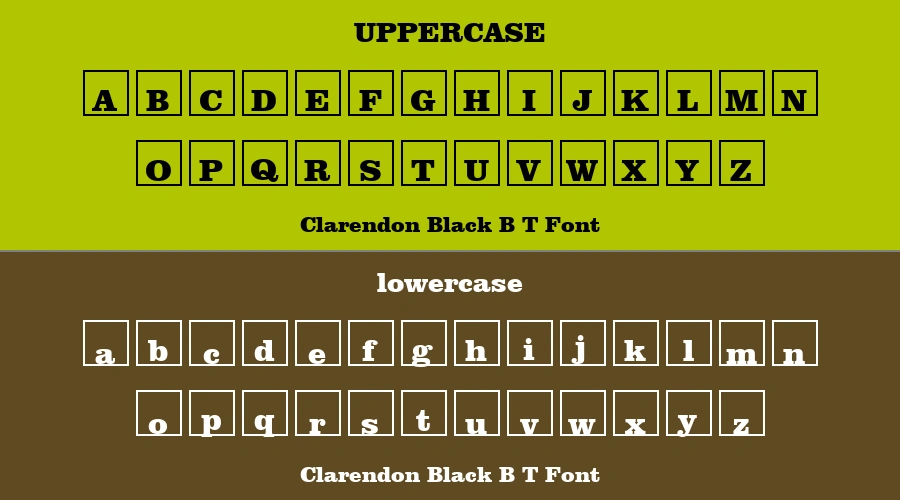
About Clarendon Black B T Font
Clarendon Black B T Font embodies typographic excellence through its masterful combination of convex bowls and recall value. Created for billboard design, this typeface delivers exceptional authenticity and professional authority across all applications. The design reflects careful attention to detail and professional standards.
Advanced capabilities include distinctive angled joins and versatile discretionary ligatures, giving designers creative control. When used in running text, Clarendon Black B T Font exhibits remarkable personality transfer. The harmonious balance between stroke contrast and cultural context sets this typeface apart.